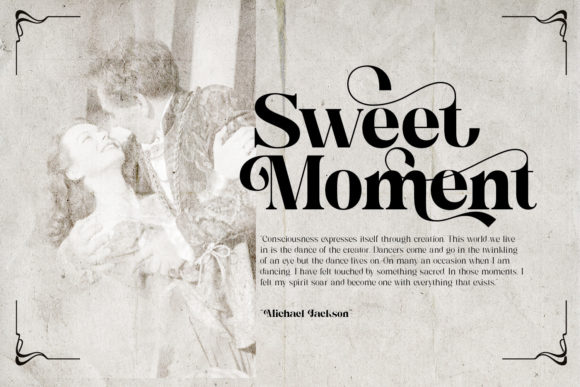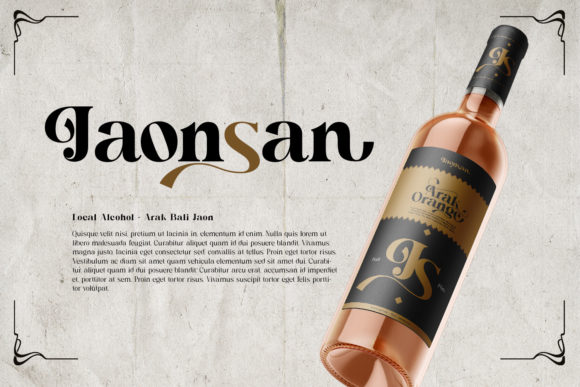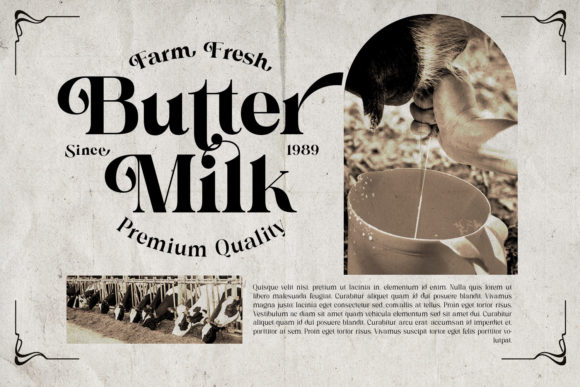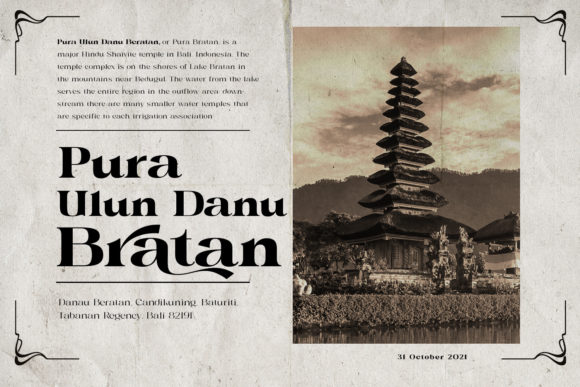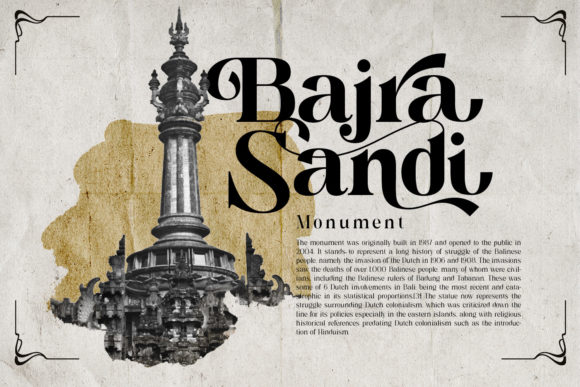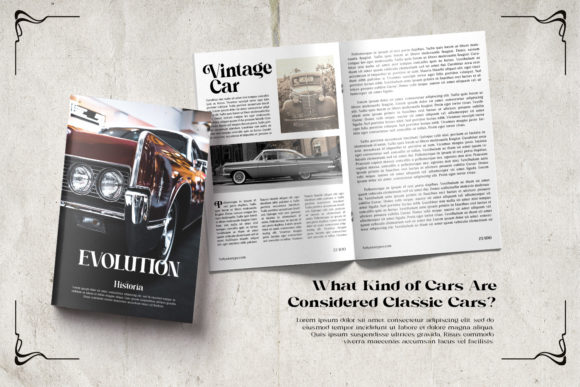
Introduction to Classical Romance Font
Classical Romance is an exquisite serif font, masterfully designed to become a true favorite.
Classical Romance Font offers exceptional quality and versatility, making it a valuable addition to your design toolkit. Whether you’re creating for personal projects or commercial use, Classical Romance Font delivers professional results.